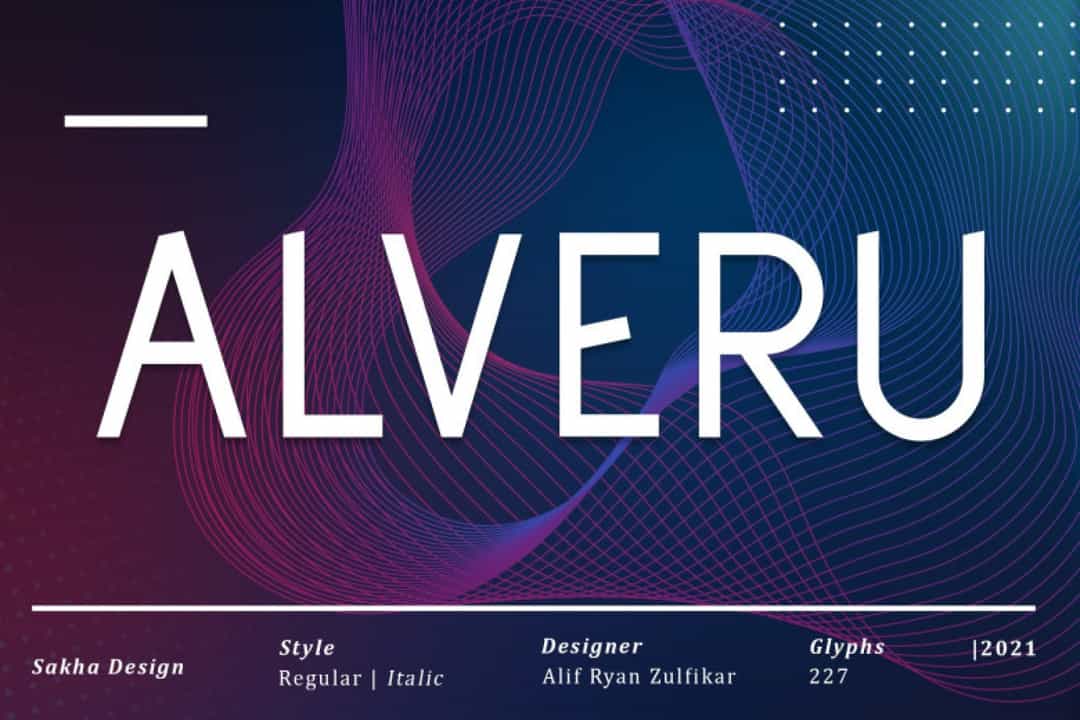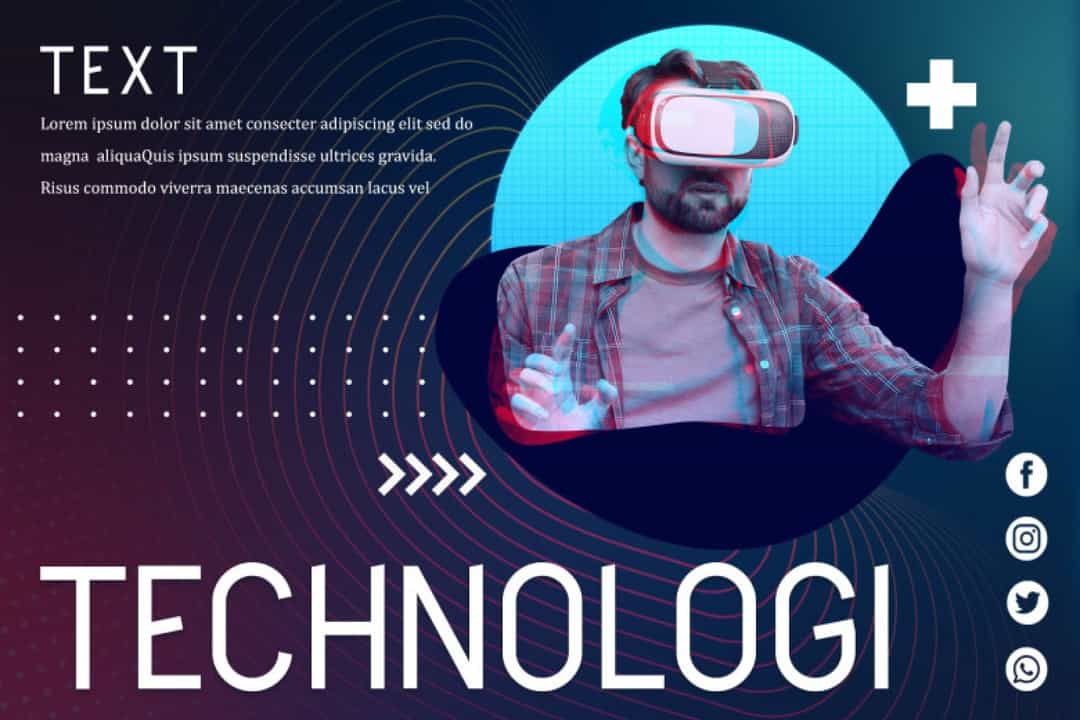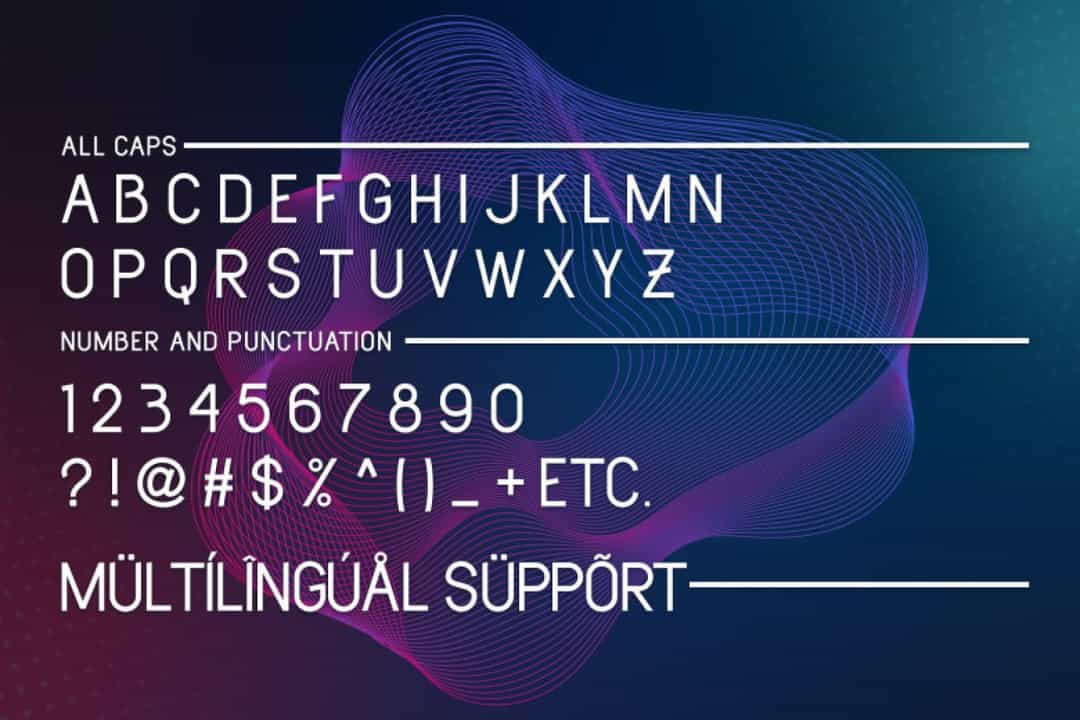
Alveru is an elegant sans-serif font that fits easily with various designs and is sure to stand out. Be inspired and see its impactful message through Alveru!